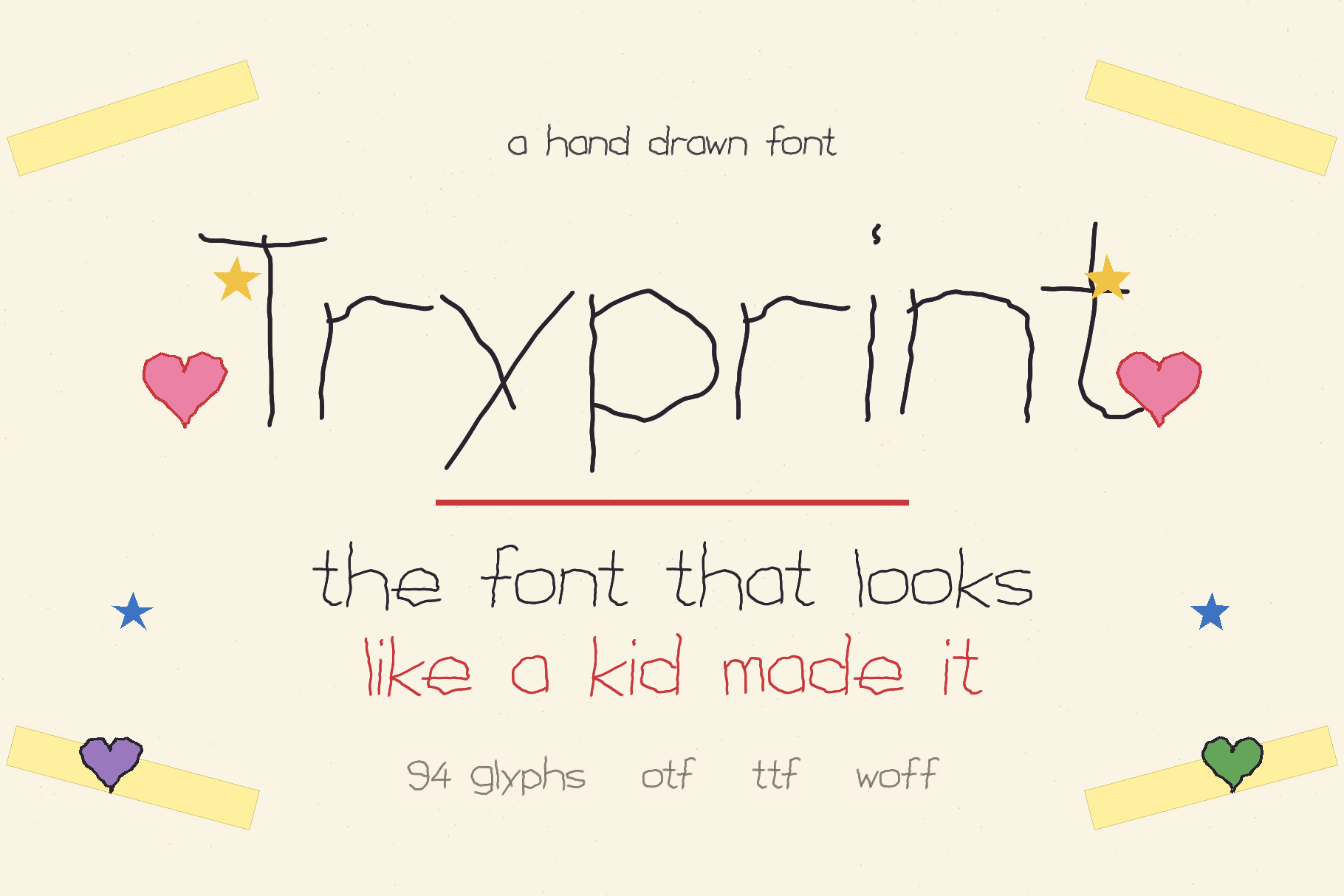
Tryprint — The Font a Kid Made
The font that looks like your kid made it — because sometimes perfect just isn't the point. Every wobbly line, every crooked O, every letter that refuses to sit on the baseline — Tryprint captures the pure magic of a 6-year-old writing their very first card to mom. It's the font you reach for when you want your design to feel real instead of polished.
✨ WHY DESIGNERS LOVE TRYPRINT
- Instant emotional hook — this font makes people smile before they even read the words
- Perfect for Mother's Day & family projects — nothing sells emotion like authentic childlike handwriting
- Saves you hours — stop hunting for "cute kid fonts" that look fake. This one is the real deal.
- Works at any size — from tiny gift tags to huge wall art
- Plays well with others — pair it with clean sans-serifs for editorial, or let it stand alone
💡 THE STORY BEHIND TRYPRINT Tryprint was born from a simple observation: the most touching thing a mom will ever receive isn't a beautifully designed card from Hallmark — it's the one her kid made with a dull pencil, tongue sticking out in concentration. I wanted to bottle that feeling into a typeface. The result is a font that doesn't try to be pretty. It just is — and that's exactly why it works.